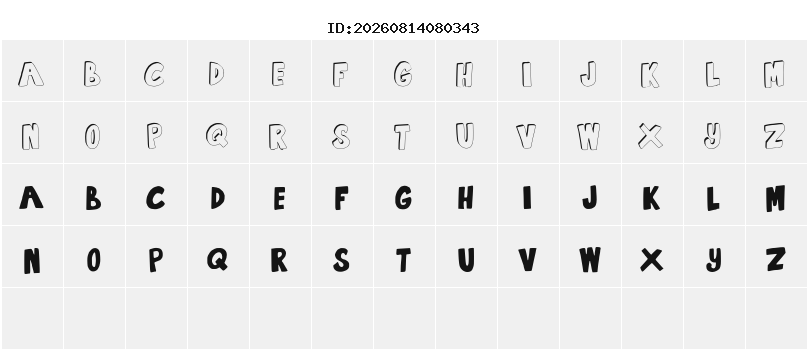
Summertime Lovin Preview
• Font Name: Summertime Lovin
• Full Font Name: SummertimeLovin
• PostScript Name: SummertimeLovin
• Character Count: 142
• Designer: =^_^=
About Summertime Lovin.otf
Summertime Lovin.otf is a modern, elegant sans-serif font designed for ultimate readability and visual harmony. Perfect for branding, headlines, web design, and print materials.